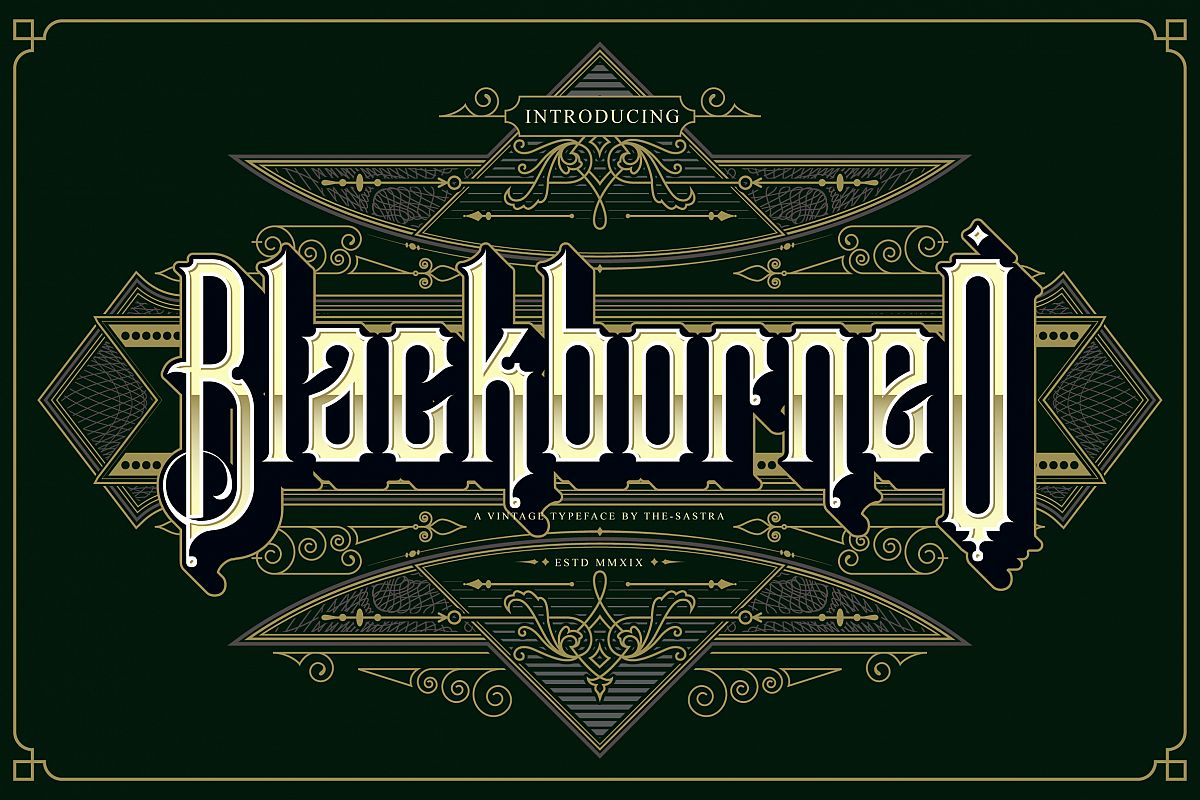
Blackborneo
BlackBorneo
Introducing a new Display font called BlackBorneo.
BlackBorneo typeface is perfect for badges, branding, labels, apparel,
headlines, signage, logo, quote, apparel and other creative
applications.